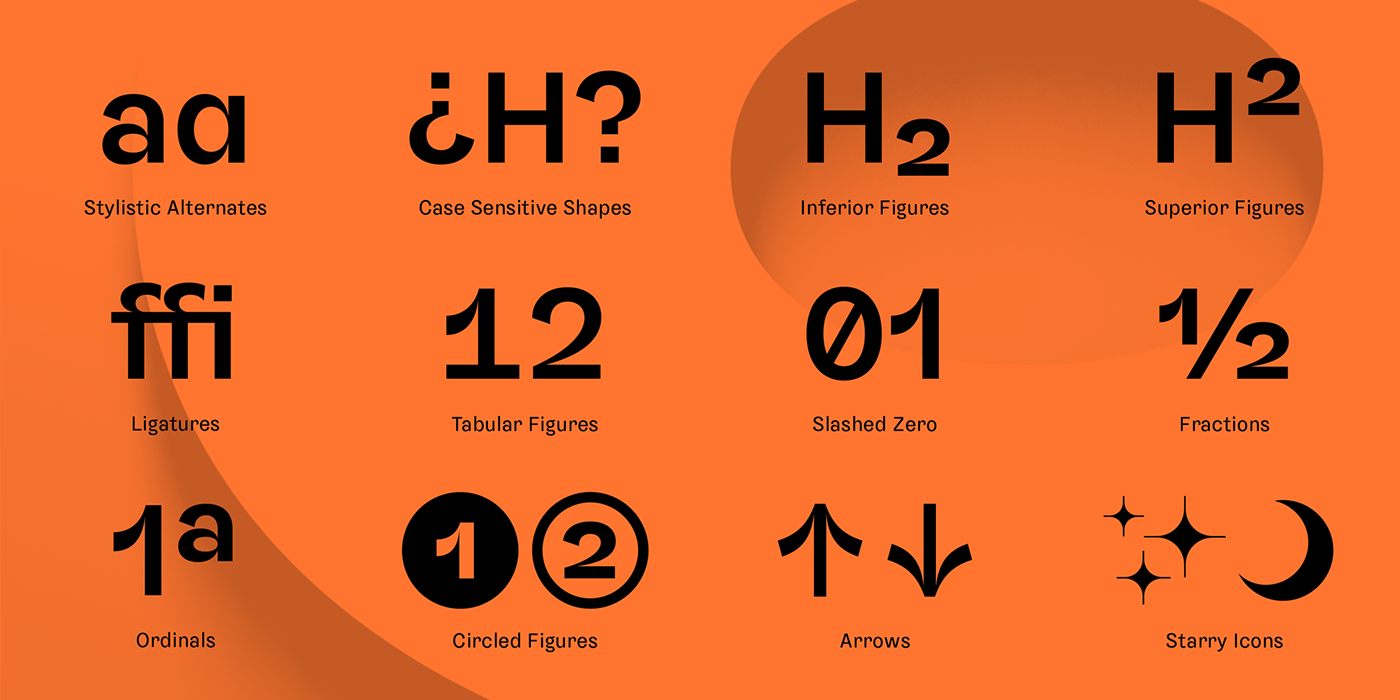
Sombra Font Family . sombra is an organic grotesque typeface with flourishing spirit. It combines geometric structure with leafy, sharply swelling strokes and exaggerated incisions. It combines geometric structure with leafy, sharply swelling strokes. designed by paul eslage and published just recently by foundry typemates in 2020, sombra is an organic sans serif font family with a. sombra sans font family is a fresh and blossoming organic grotesk type. It combines geometric structure with leafy, sharply swelling strokes. It combines geometric structure with leafy, sharply swelling strokes and exaggerated incisions. This font is a modern sans serif family from typemates that blends old and new generation sans serif fonts in the same pot. sombra sans serif font. combining geometric design with leafy attributes such as soaring strokes and exaggerated cuts, sombra exhibits both. sombra is an organic grotesque typeface with flourishing spirit. sombra is an organic grotesque typeface with flourishing spirit. sombra is an organic grotesque typeface with flourishing spirit. It combines geometric structure with leafy, sharply. It superimposes geometrical architecture on top of which strong veins of.
sombra sans font family is a fresh and blossoming organic grotesk type. sombra is an organic grotesque typeface with flourishing spirit. It combines geometric structure with leafy, sharply swelling strokes. It combines geometric structure with leafy, sharply. sombra is an organic grotesque typeface with flourishing spirit. designed by paul eslage and published just recently by foundry typemates in 2020, sombra is an organic sans serif font family with a. combining geometric design with leafy attributes such as soaring strokes and exaggerated cuts, sombra exhibits both. It combines geometric structure with leafy, sharply swelling strokes and exaggerated incisions. It superimposes geometrical architecture on top of which strong veins of. sombra sans serif font.
Sombra Font Family sombra sans font family is a fresh and blossoming organic grotesk type. It combines geometric structure with leafy, sharply swelling strokes. combining geometric design with leafy attributes such as soaring strokes and exaggerated cuts, sombra exhibits both. sombra sans font family is a fresh and blossoming organic grotesk type. sombra is an organic grotesque typeface with flourishing spirit. sombra is an organic grotesque typeface with flourishing spirit. This font is a modern sans serif family from typemates that blends old and new generation sans serif fonts in the same pot. sombra is an organic grotesque typeface with flourishing spirit. sombra sans serif font. It combines geometric structure with leafy, sharply swelling strokes. It superimposes geometrical architecture on top of which strong veins of. It combines geometric structure with leafy, sharply swelling strokes and exaggerated incisions. It combines geometric structure with leafy, sharply. designed by paul eslage and published just recently by foundry typemates in 2020, sombra is an organic sans serif font family with a. It combines geometric structure with leafy, sharply swelling strokes and exaggerated incisions. sombra is an organic grotesque typeface with flourishing spirit.
Sombra Font Family from TypeMates Sombra Font Family This font is a modern sans serif family from typemates that blends old and new generation sans serif fonts in the same pot. combining geometric design with leafy attributes such as soaring strokes and exaggerated cuts, sombra exhibits both. It superimposes geometrical architecture on top of which strong veins of. sombra is an organic grotesque typeface with flourishing. Sombra Font Family.
Cómo Hacer Letras Con Sombras Fácilmente Hola Lettering Sombra Font Family It superimposes geometrical architecture on top of which strong veins of. It combines geometric structure with leafy, sharply swelling strokes. It combines geometric structure with leafy, sharply swelling strokes and exaggerated incisions. sombra sans font family is a fresh and blossoming organic grotesk type. sombra is an organic grotesque typeface with flourishing spirit. It combines geometric structure with. Sombra Font Family.
Werksatz font family from identity letters Artofit Sombra Font Family sombra sans serif font. combining geometric design with leafy attributes such as soaring strokes and exaggerated cuts, sombra exhibits both. sombra is an organic grotesque typeface with flourishing spirit. sombra sans font family is a fresh and blossoming organic grotesk type. It combines geometric structure with leafy, sharply. sombra is an organic grotesque typeface with. Sombra Font Family.
Sombra Font Dafont Free Sombra Font Family This font is a modern sans serif family from typemates that blends old and new generation sans serif fonts in the same pot. It combines geometric structure with leafy, sharply swelling strokes. It combines geometric structure with leafy, sharply swelling strokes. sombra is an organic grotesque typeface with flourishing spirit. sombra sans serif font. It combines geometric structure. Sombra Font Family.